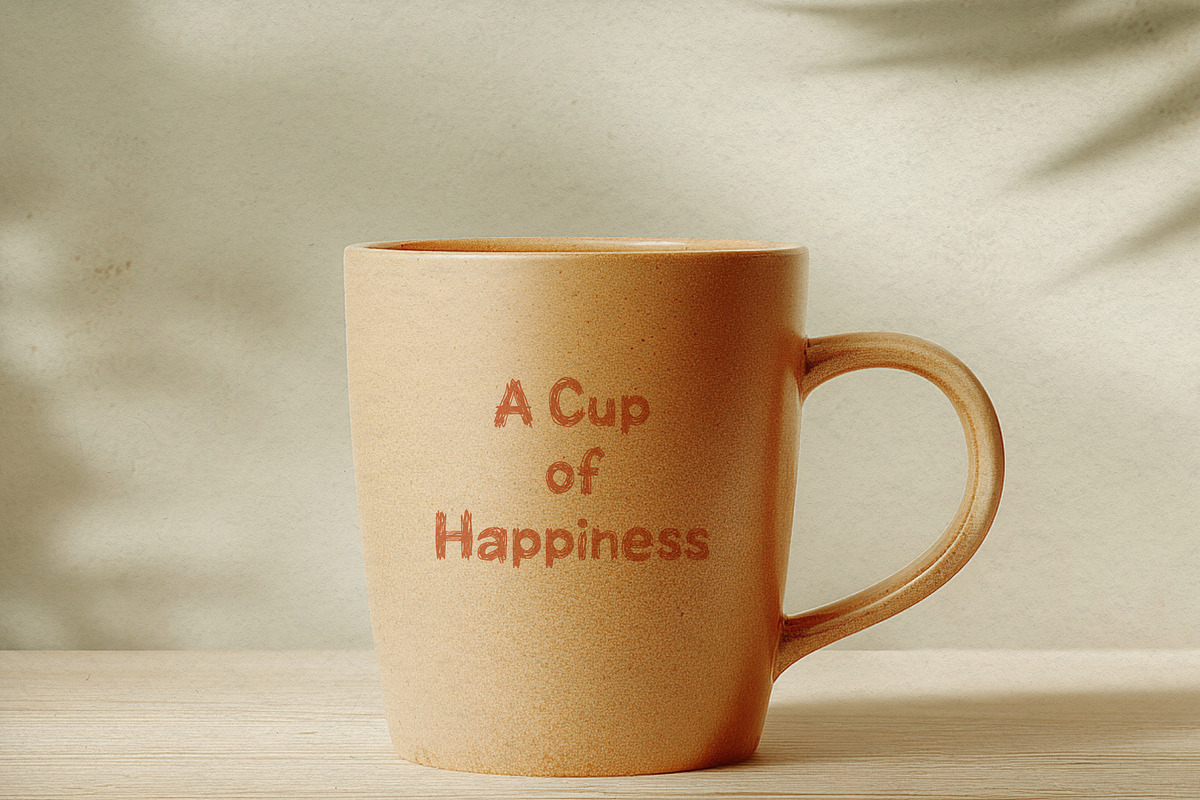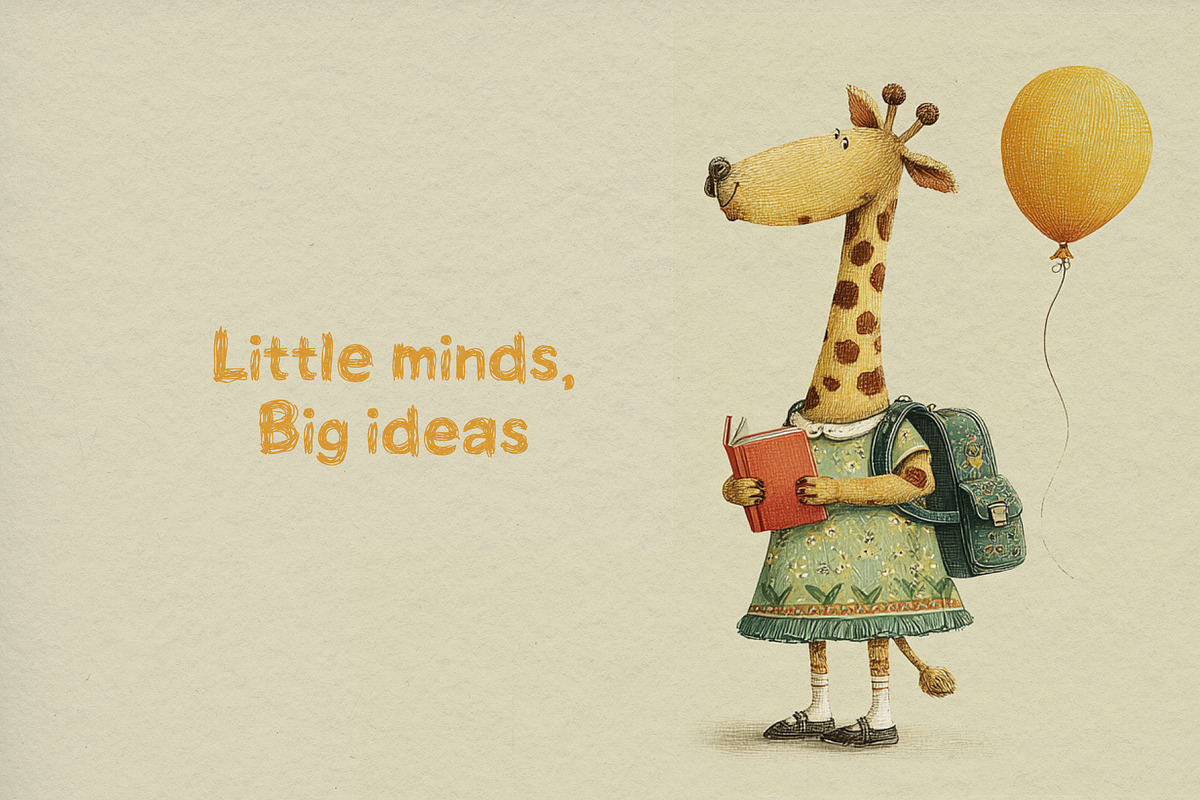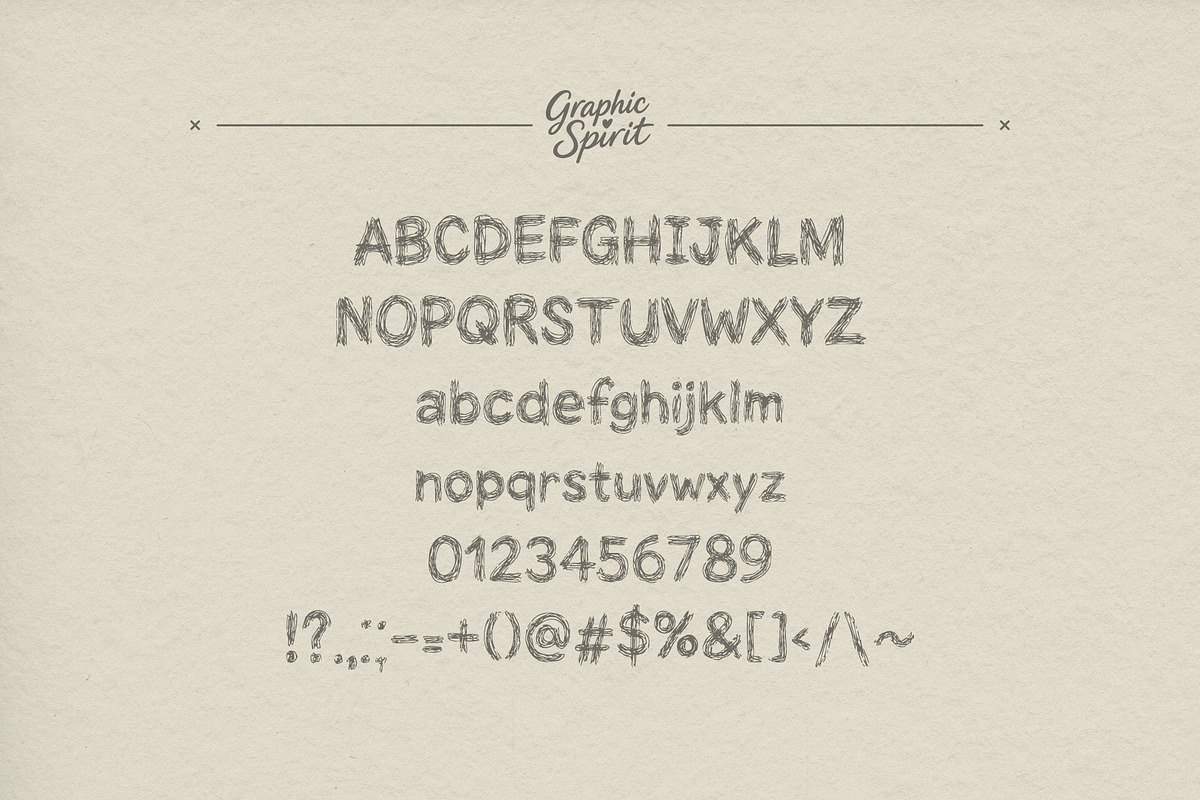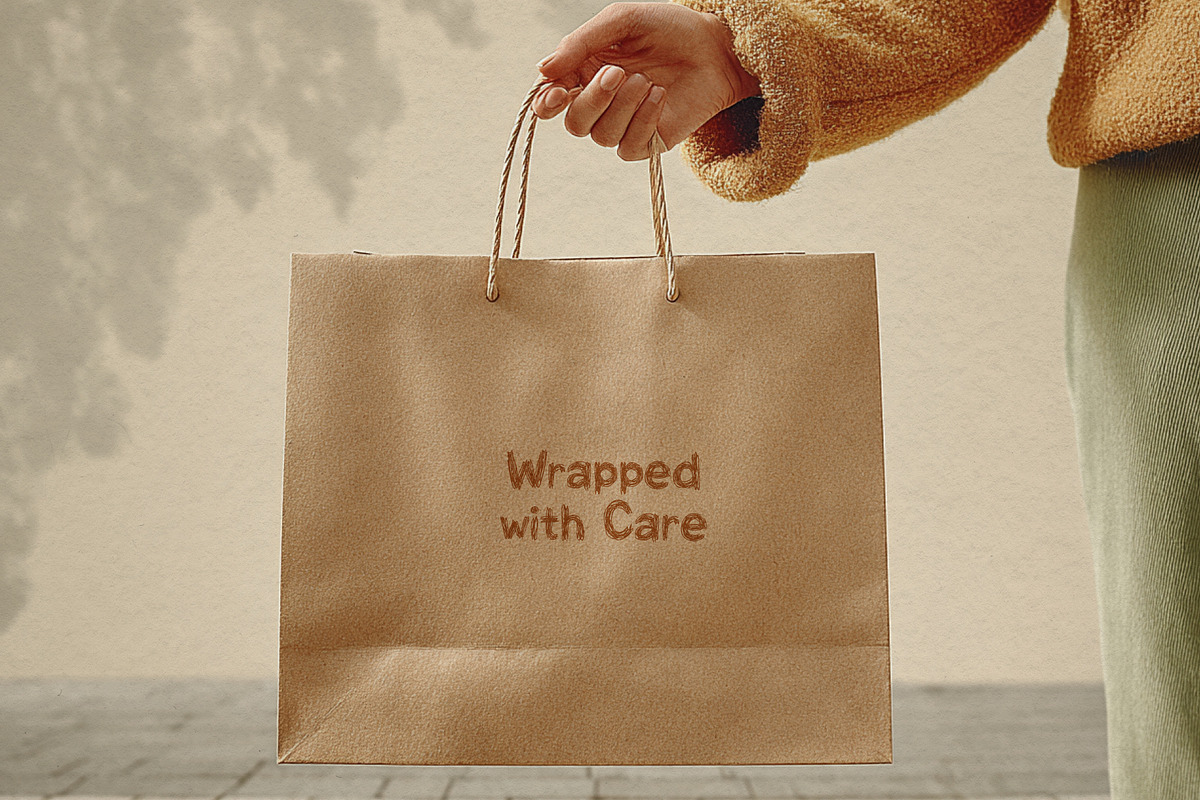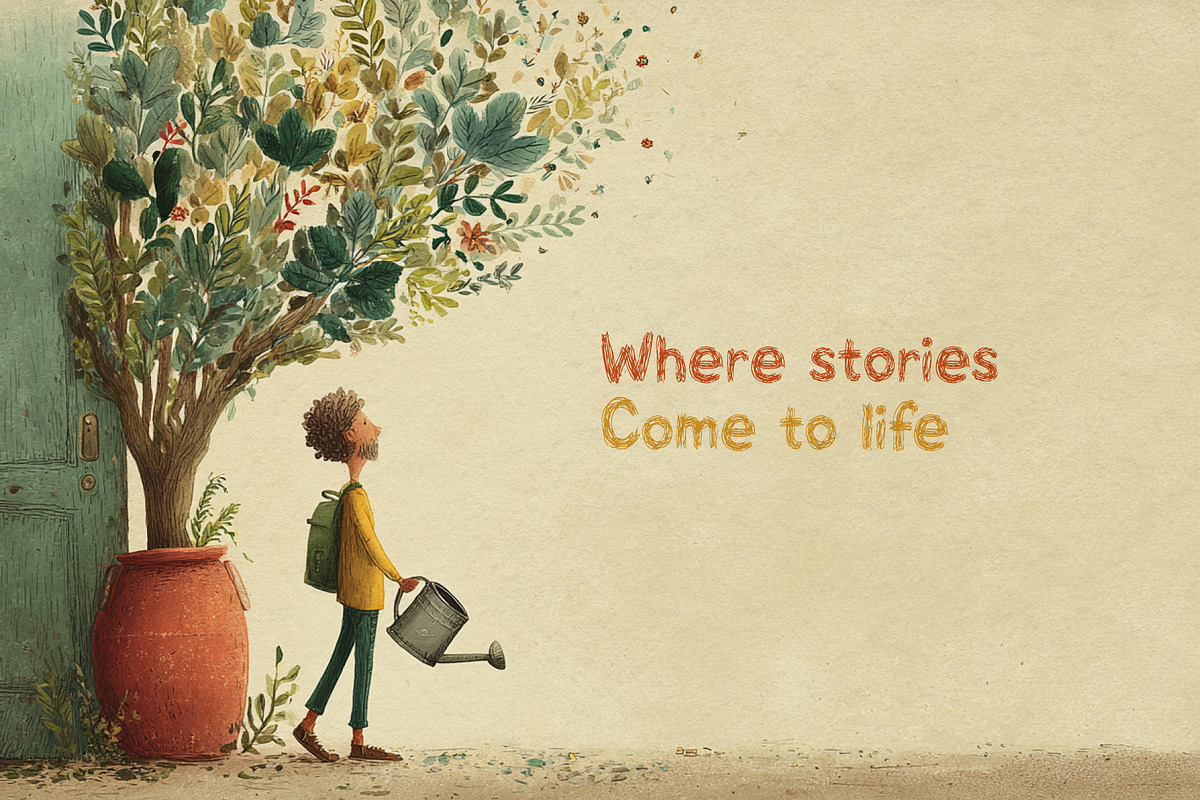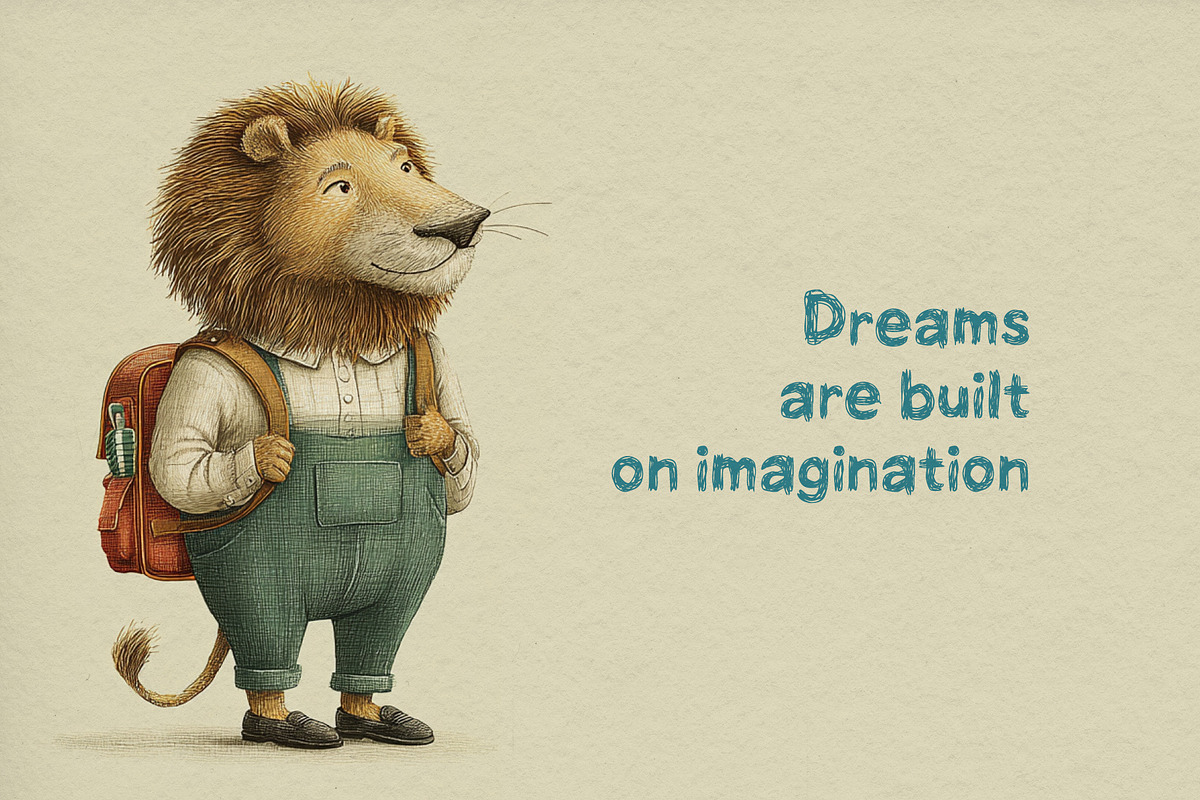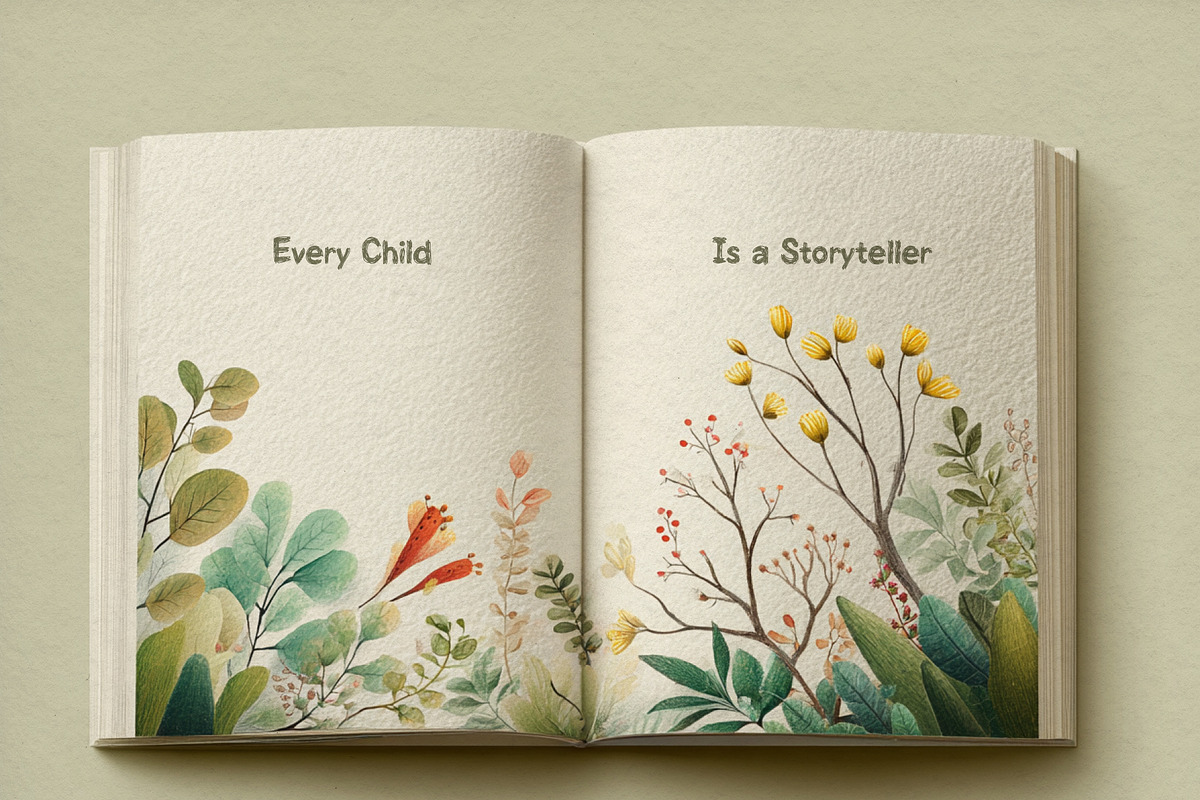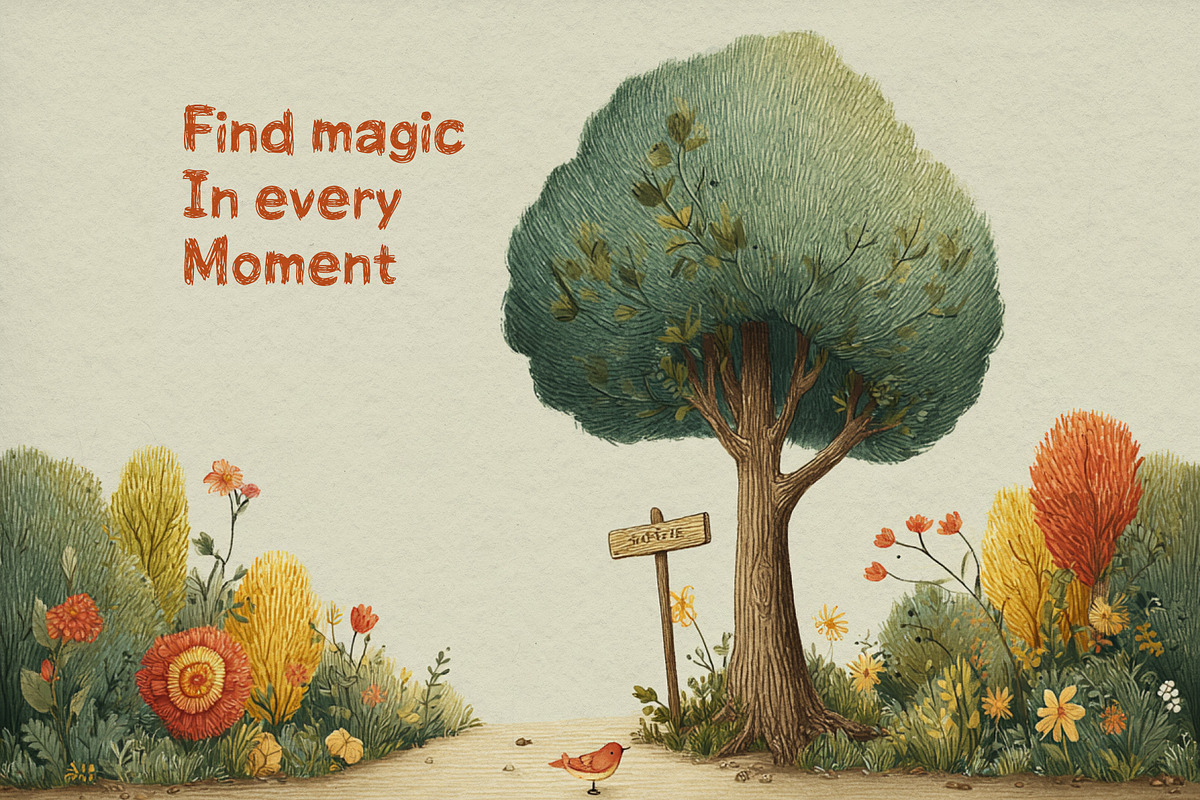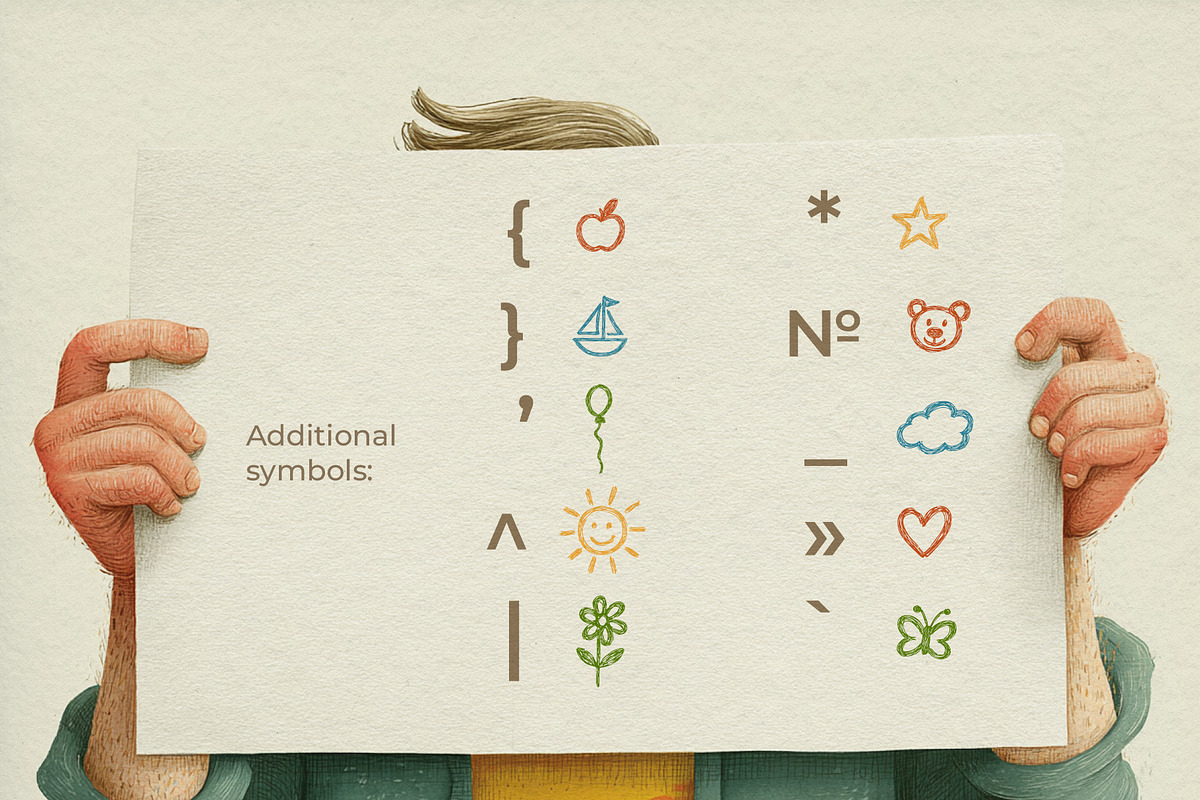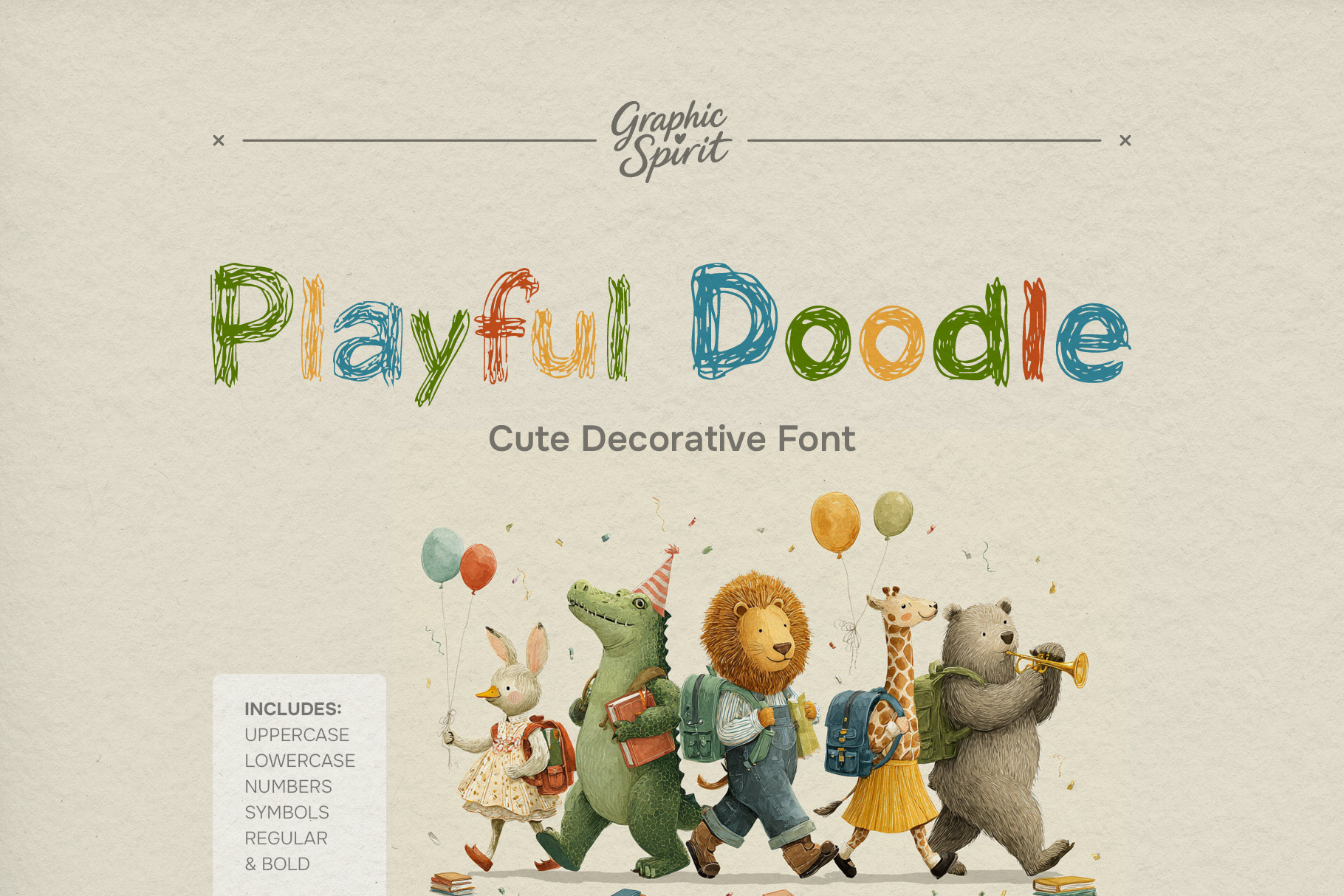
Playful Doodle Cute Decorative Font
✨ Instantly infuse your projects with charm and character using our Playful Doodle decorative font! This whimsical typeface is perfect for adding a hand-drawn, authentic feel to your creations. It includes uppercase and lowercase letters, numbers, and punctuation, making it incredibly versatile for all your DIY design needs.